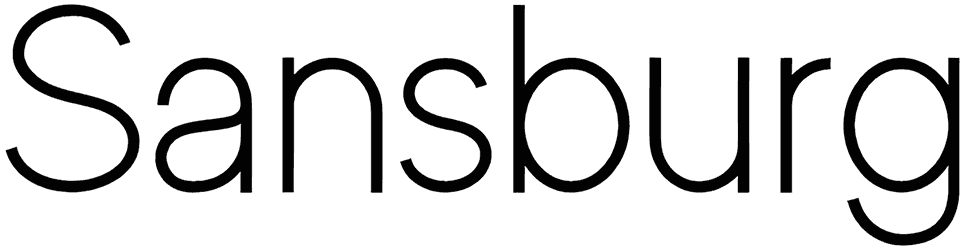
Sansburg Font
There is no doubt that a modern and minimal style can match any design and theme, and the Sansburg font has such a mood. This sans-serif font, with its timeless and delicate letters, could bring an elegant vibe to your words. With a full cover of characters, Sansburg will be a great option for your new projects, like branding, magazines, posters, and so forth.